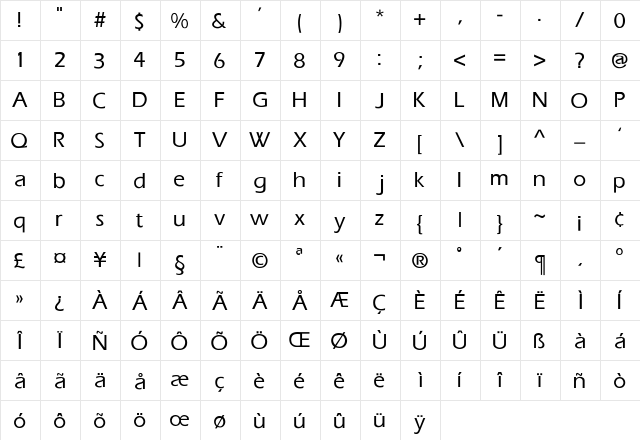
Tili-Medium-Medium Regular
Design Context for Tili-Medium-Medium Typeface
Tili-Medium-Medium offers clean, dependable letterforms without strong stylistic allegiance, making it a practical choice for designers who need flexibility.